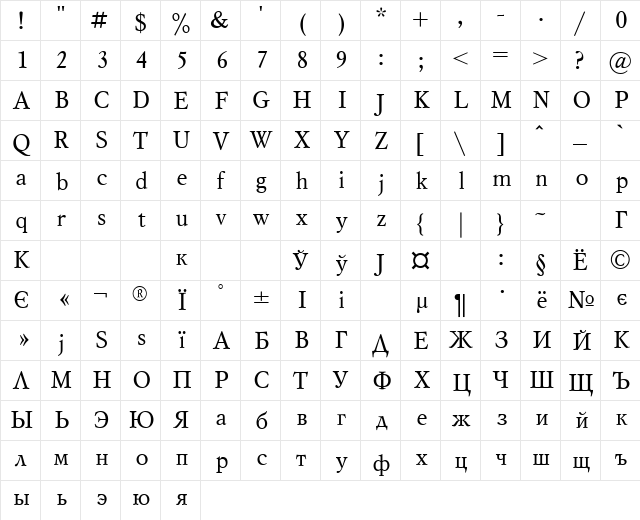
Mysl Regular
Design Context for Mysl Typeface
Mysl takes a measured approach to typography — its balanced proportions and neutral character make it a reliable workhorse for both digital and print work.